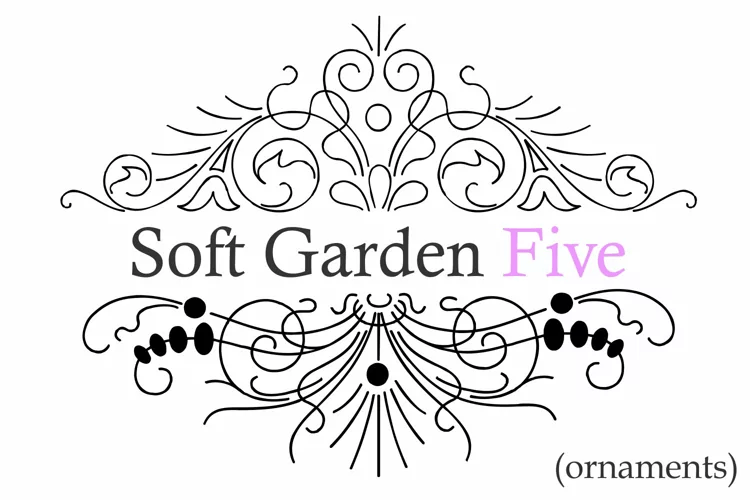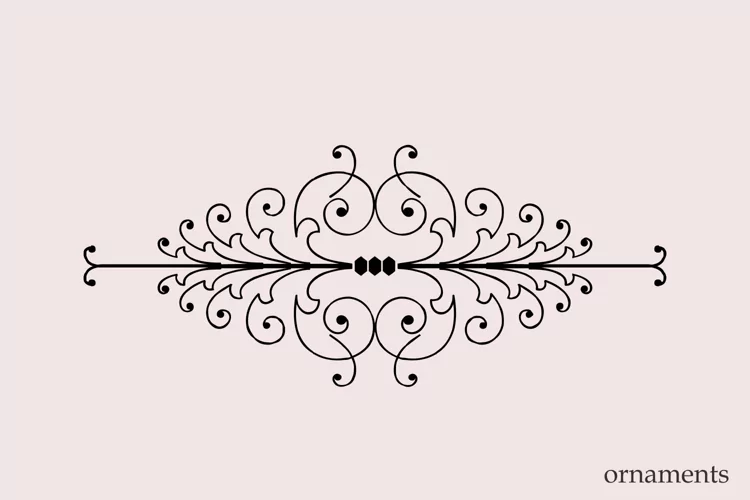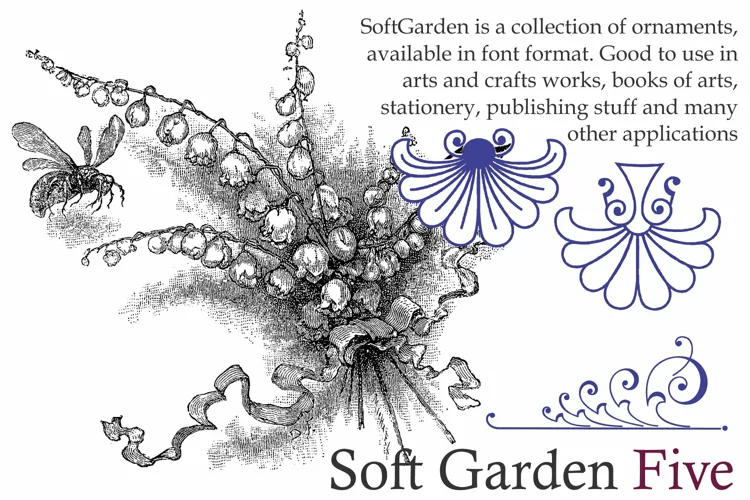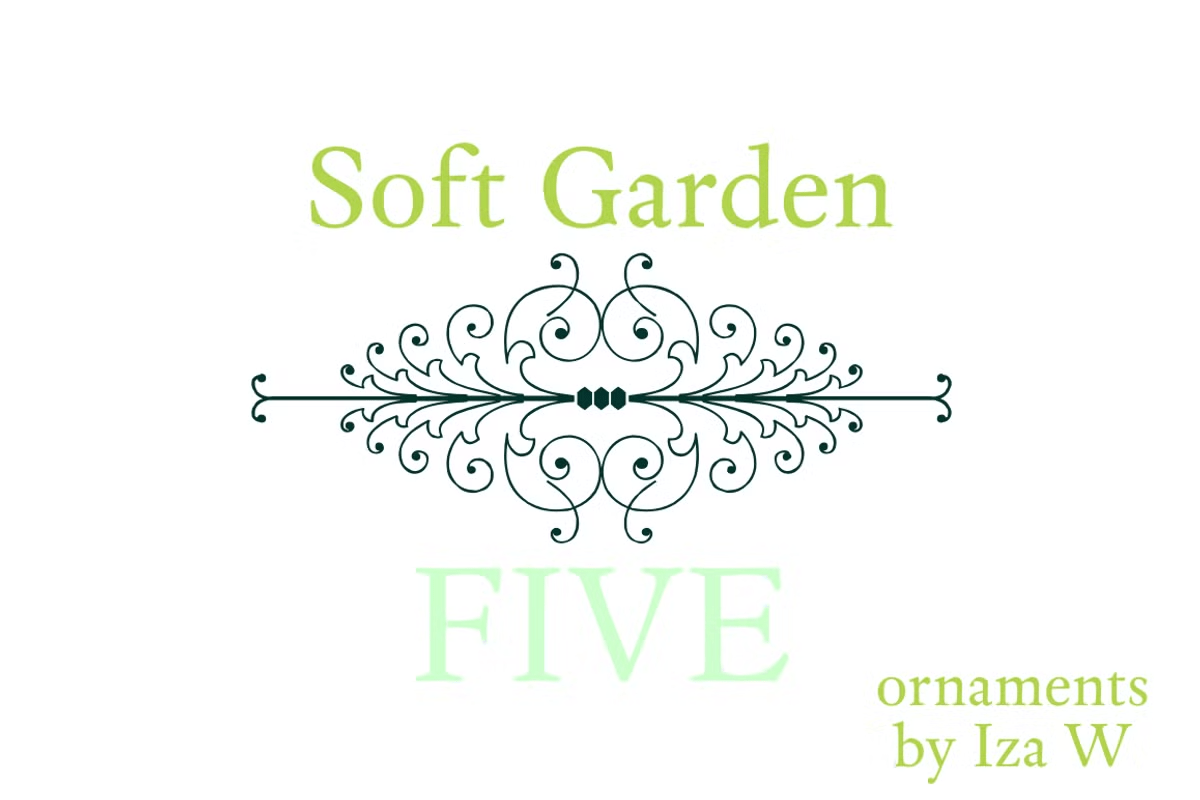
Soft Garden
Font Family by Intellecta Design
Soft Garden is a collection of ornaments, available in font format. Good to use in arts and crafts works, books of arts, stationery, publishing stuff and many other applications. Besides the font itself, when you buy Soft Garden you get a FREE collection of 49 EPS files featuring intricate and colored versions of Soft Garden.